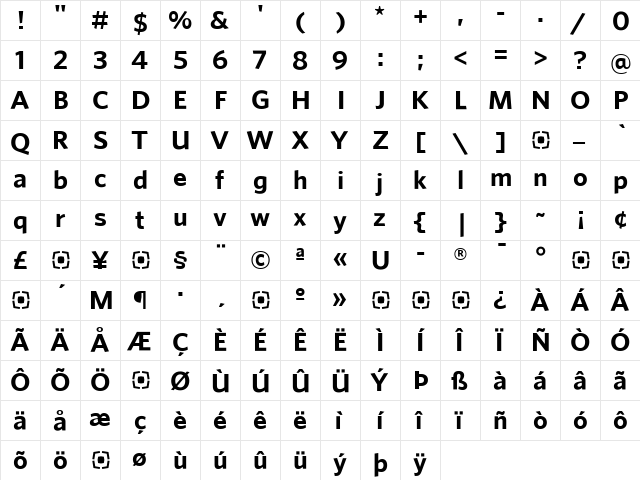
WhitneySans Regular
Design Context for WhitneySans Typeface
WhitneySans is a composed and adaptable typeface that performs quietly and consistently across a wide range of design contexts.
Pro Tip: Pair WhitneySans with a font of contrasting weight or personality to build a more expressive typographic hierarchy.